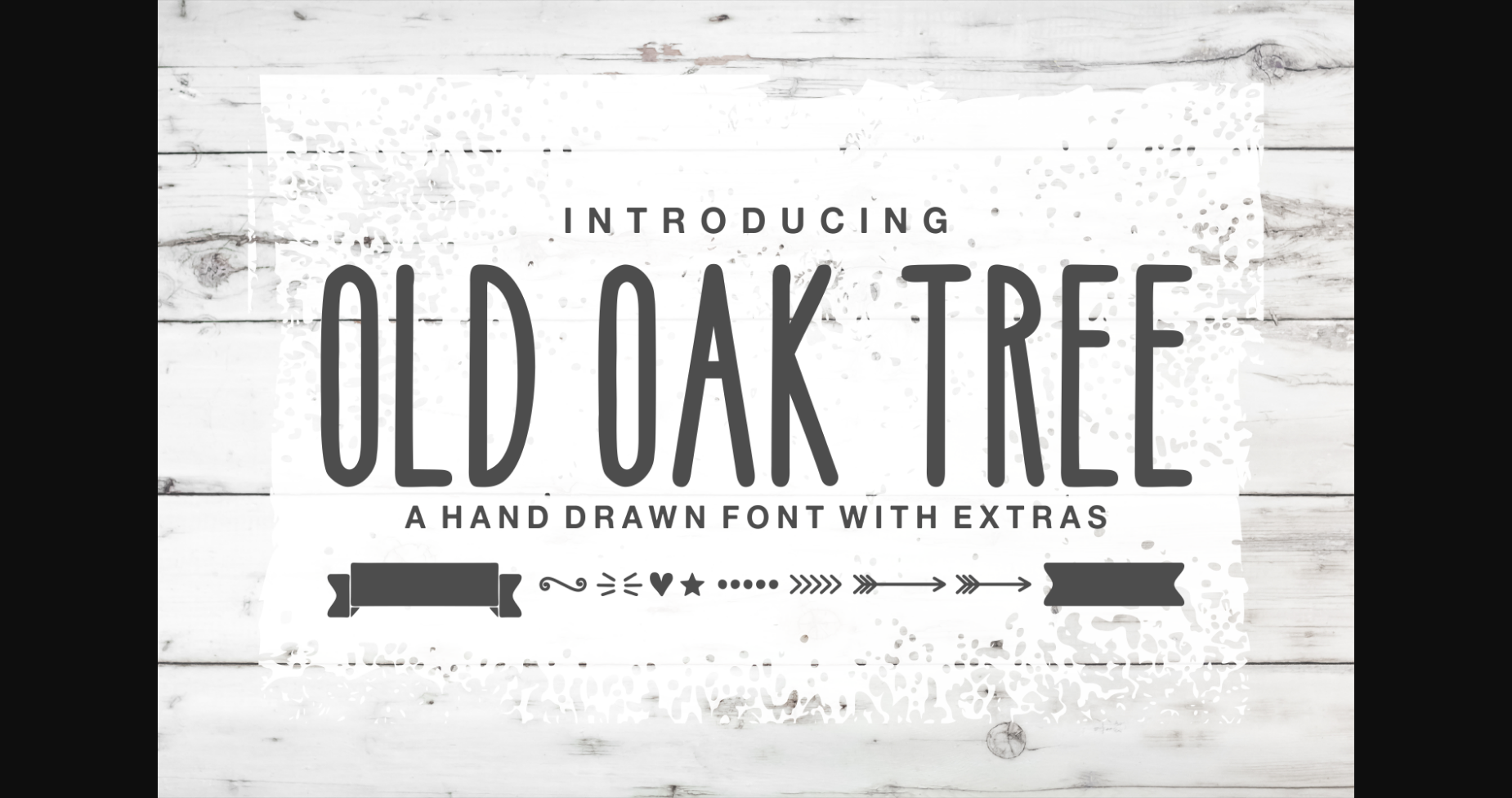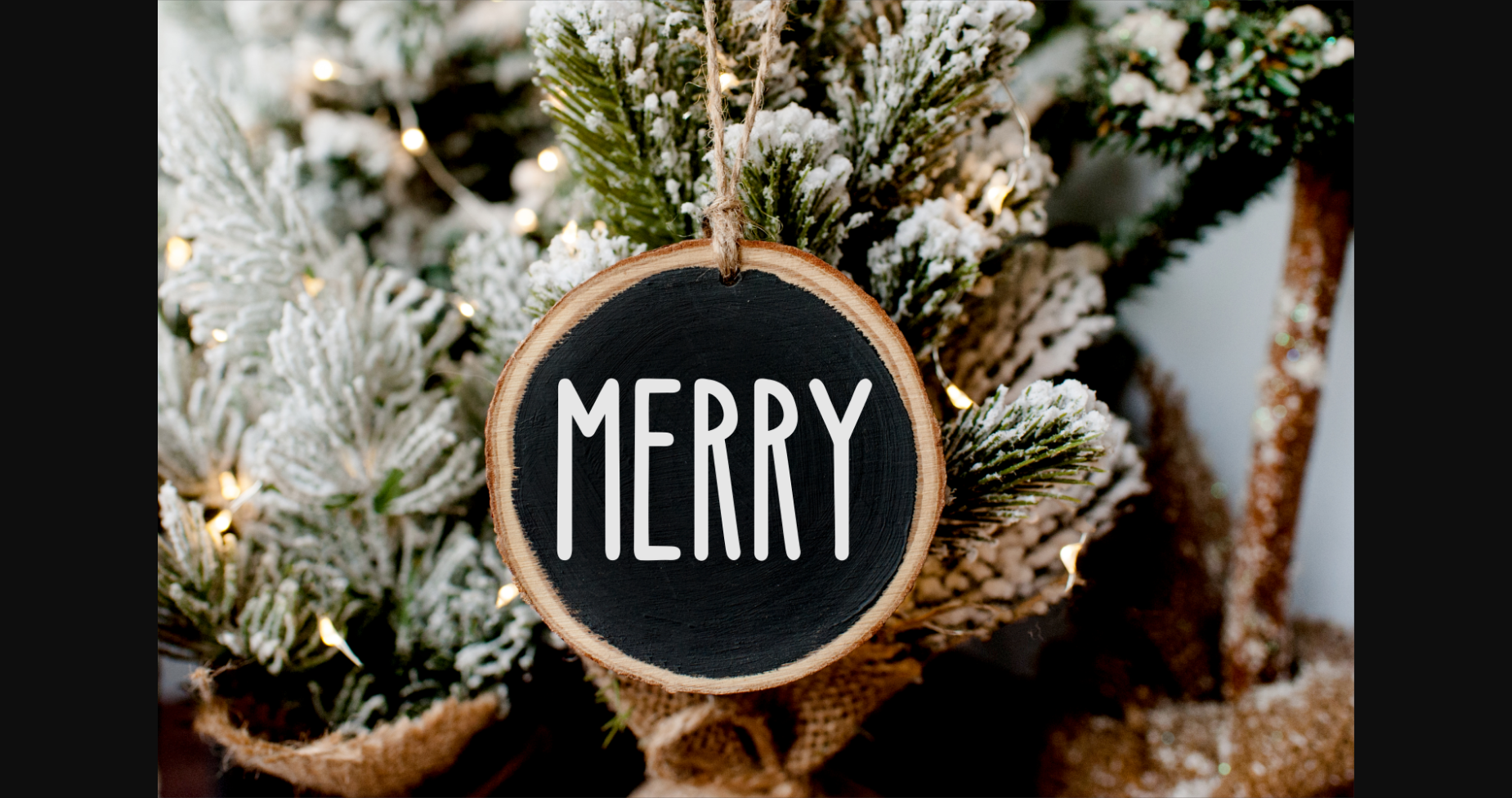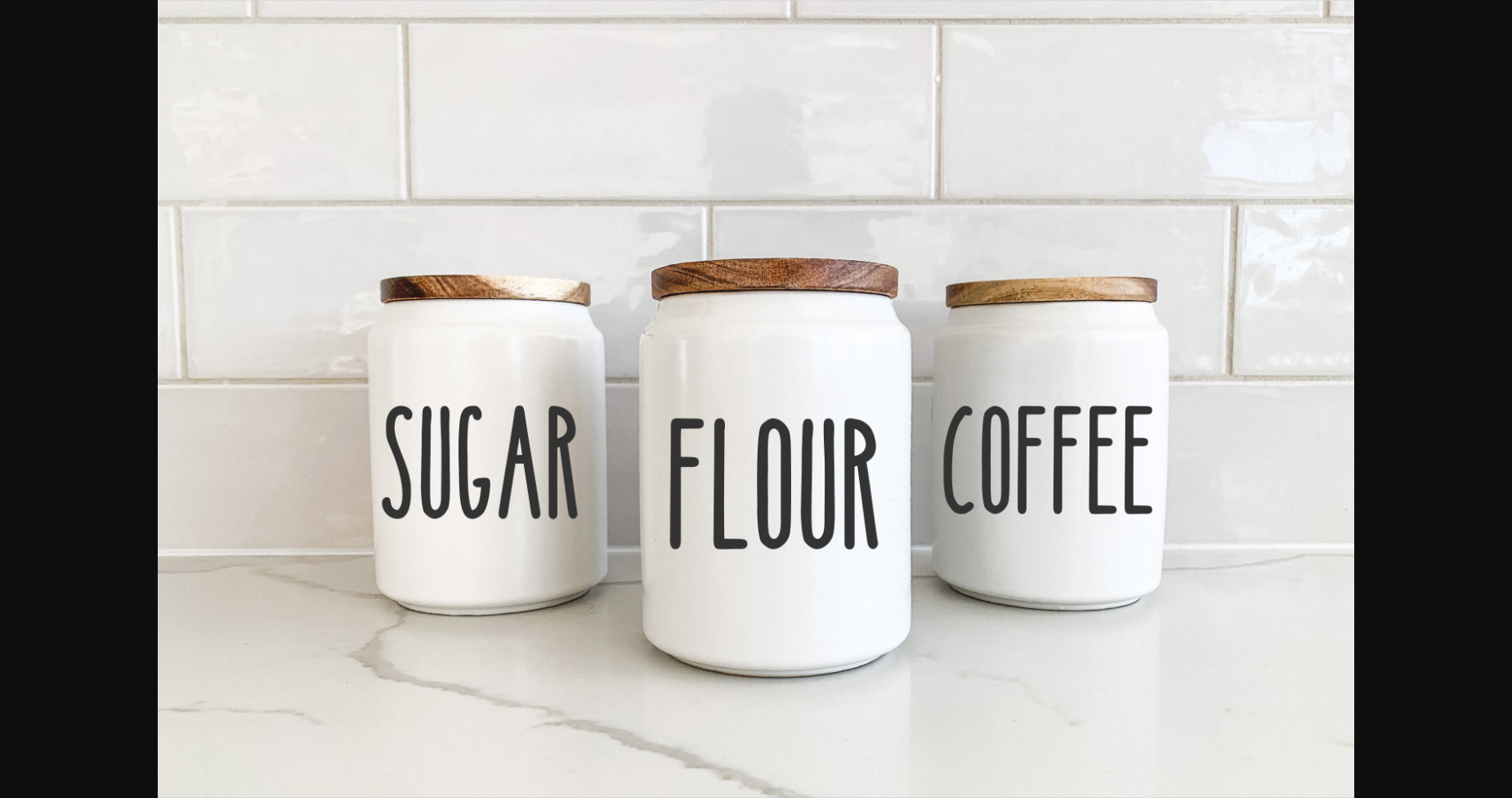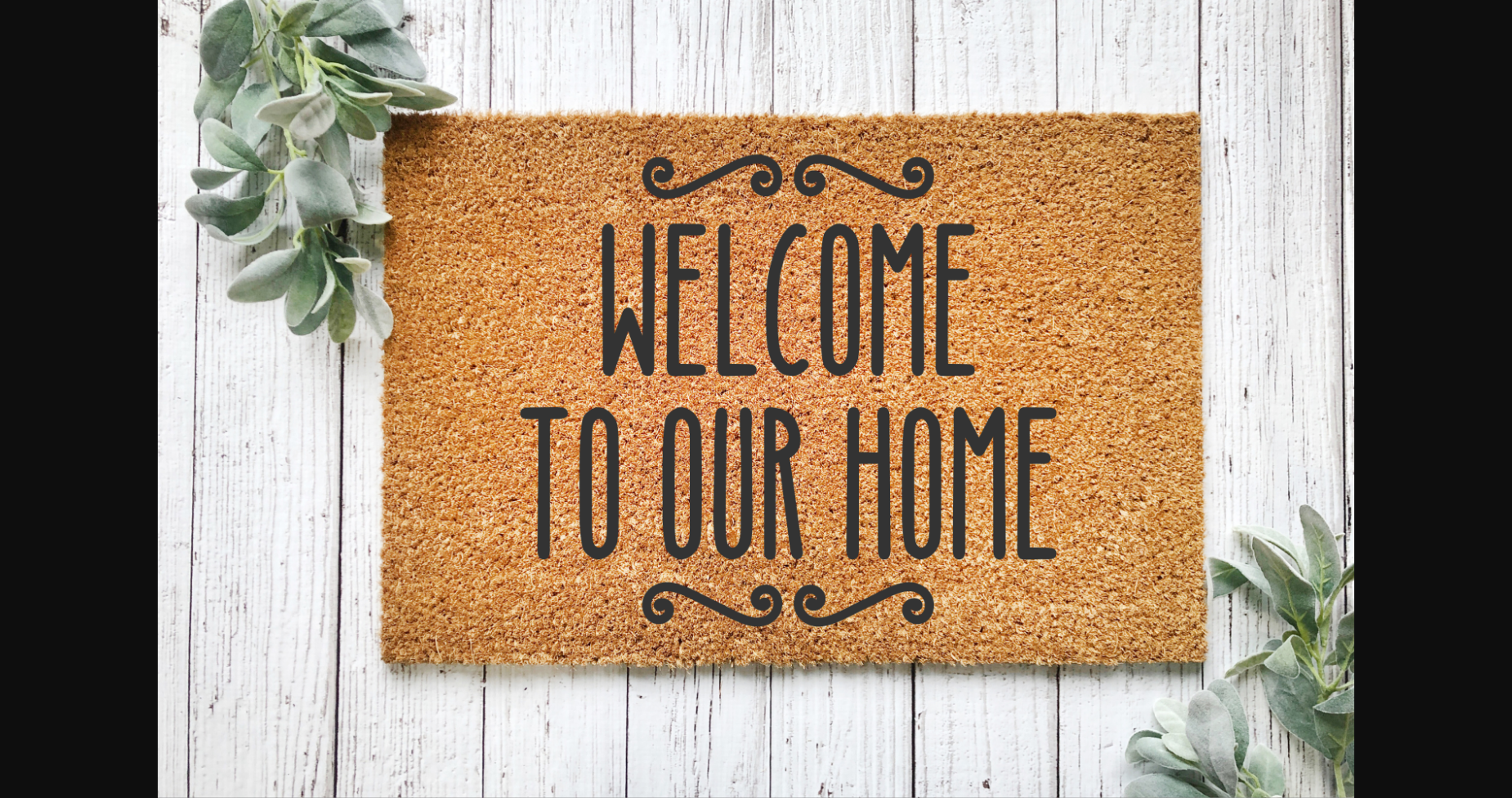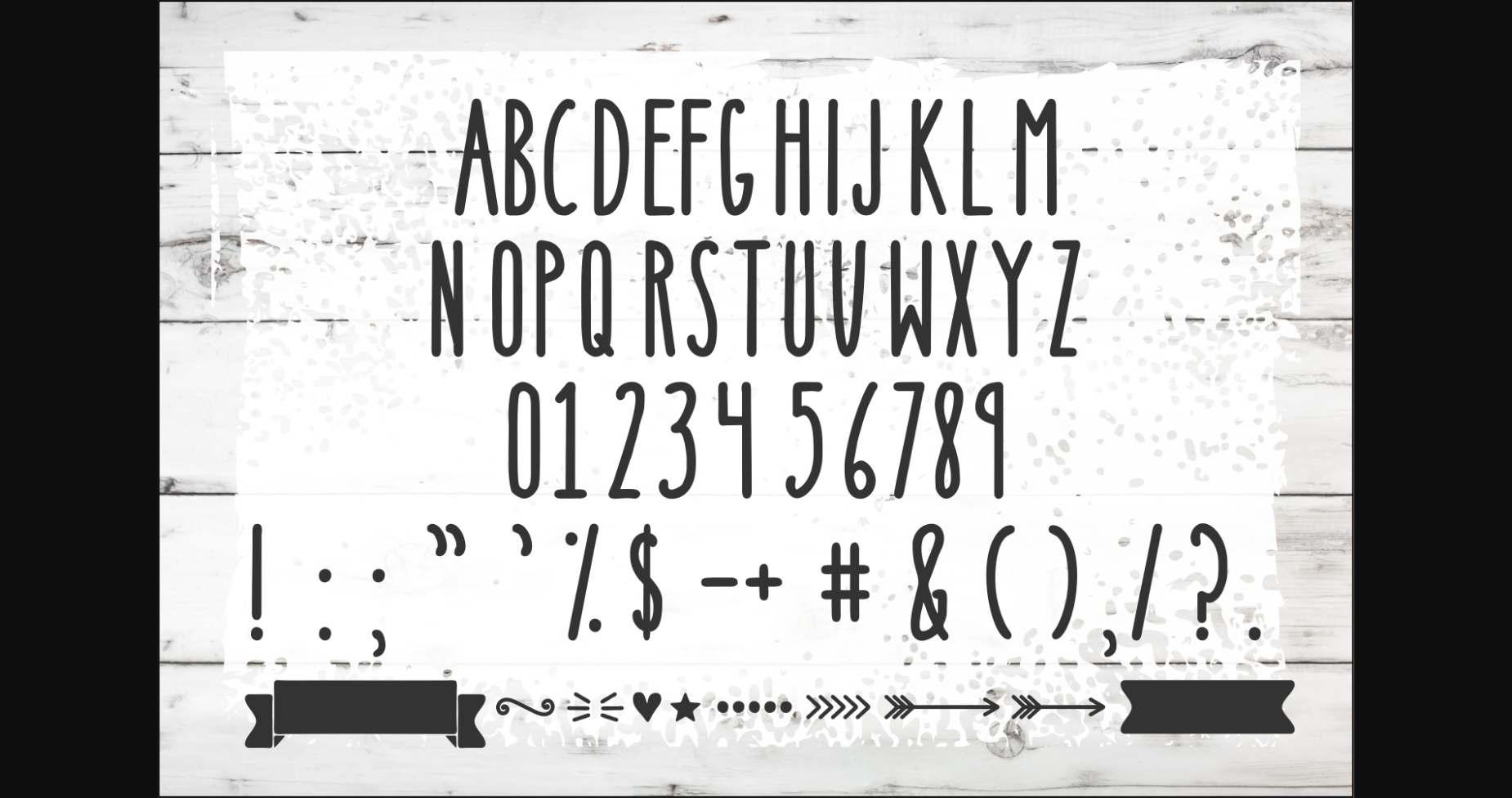
HomeSans Serif FontsOld Oak Tree Font Sans Serif Fonts Old Oak Tree Font FacebookXPinterestWhatsApp 1 of 7 ... Old Oak Tree Font Poster 2... Old Oak Tree Font Poster 3... Old Oak Tree Font Poster 4... Old Oak Tree Font Poster 5... Old Oak Tree Font Poster 6... Old Oak Tree Font Poster 7... About Old Oak Tree Font JP Old Oak Tree is an incredibly unique sans serif font made for crafters that love to play around and have fun with their designs! This font comes with extras that give a boost of fun to all your crafty ideas! DOWNLOAD NOW People also explored Zombie Demon Font Leaf Giving Font Callina Font Somethings Font Loveline Font Amellis Font Kagumi Font Yolanda Font Twilight Font 376 0 TagsOld Oak Tree Font Previous articleSrg Linear FontNext articleSoftrock Font LEAVE A REPLY Cancel reply Comment: Please enter your comment! Name:* Please enter your name here Email:* You have entered an incorrect email address! Please enter your email address here Website: Save my name, email, and website in this browser for the next time I comment. Personal Use Free Leorio Personal Use Free Read more about this font Lion Teen Personal Use Free Read more about this font Aelten Personal Use Free Read more about this font Expaing Personal Use Free Read more about this font BLOG Free vs Paid Fonts: Why Investing in Premium Fonts Is Worth It Free vs Paid Fonts: Why Premium Fonts Are Worth It in 2025 The debate of free vs paid fonts continues in the design world. While... Modern Sans-Serif Fonts That Brands Love in 2025 Best Fonts for T-Shirt Design – Top 2025 Picks Elegant Wedding Invitation Fonts – Handwritten & Script Fonts